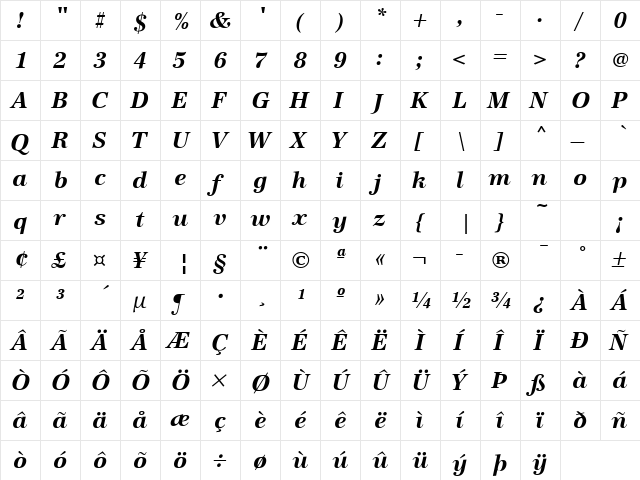
URWAntiquaT Bold Italic Font Preview
Design Context for URWAntiquaT Typeface
URWAntiquaT takes a measured approach to typography — its balanced proportions and neutral character make it a reliable workhorse for both digital and print work. The slanted form adds forward momentum and visual energy. Its bold stroke weight gives it real presence on the page.
Pro Tip: Try URWAntiquaT for annotation and caption copy alongside an upright companion — the contrast in angle creates a dynamic but ordered typographic system.